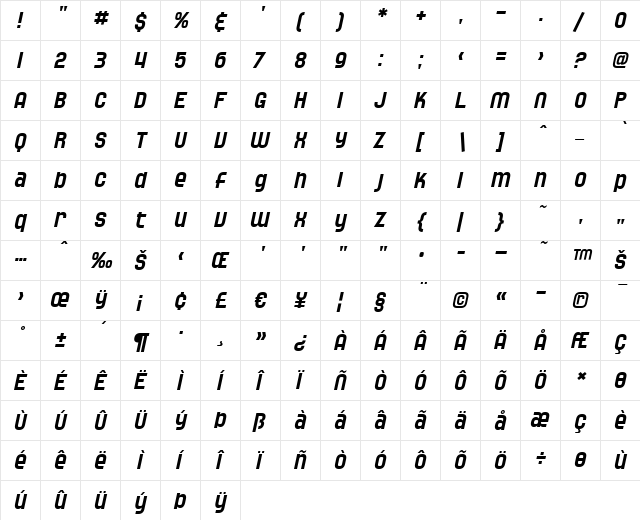
SF Speedwaystar Oblique
Design Context for SF Speedwaystar Typeface
SF Speedwaystar offers clean, dependable letterforms without strong stylistic allegiance, making it a practical choice for designers who need flexibility. The dynamic lean of this cut emphasises speed and emphasis in any layout.
Pro Tip: Try SF Speedwaystar for annotation and caption copy alongside an upright companion — the contrast in angle creates a dynamic but ordered typographic system.